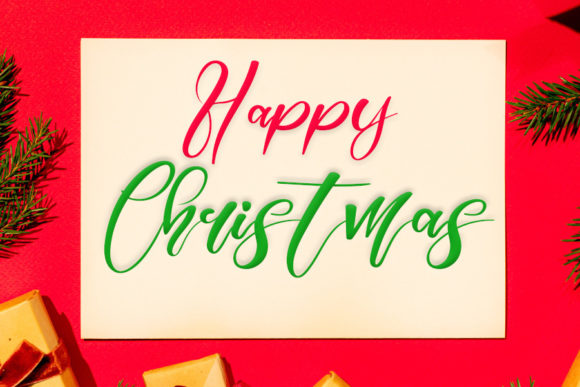
Christmas is a sweet and delicate handwritten font. Dainty and joyful, this font will be ideal for writing wedding invitations, cards or any other design that may need a romantic, personalized touch!